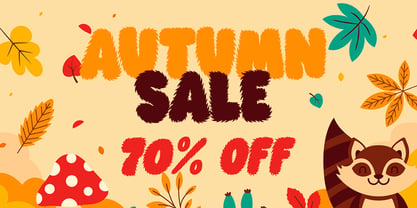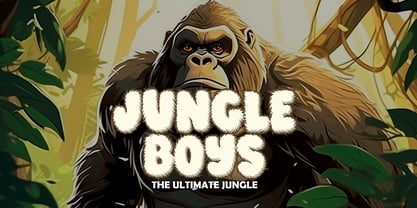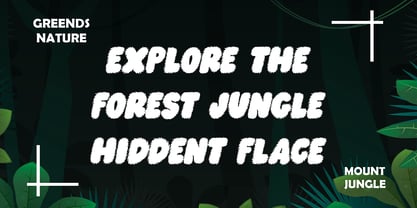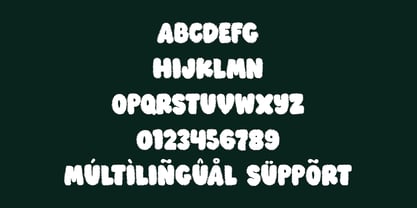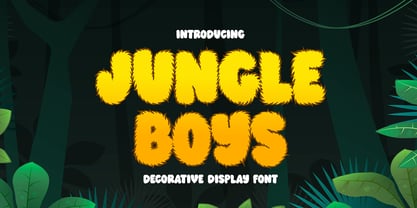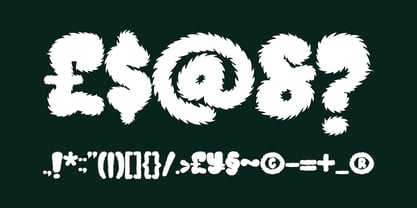
Jungle Boys
by Sipanji21
The Jungle Boys Font Family was designed by Sipanji and published by Sipanji21. Jungle Boys contains 2 styles and family package options. More about this family
Jungle Boys is a bold and wild decorative display font with a furry jungle theme. Inspired by tropical forests and the playful energy of childhood, this typeface is perfect for projects that require a lively and adventurous tone. It’s highly suitable for kids’ books, cartoon titles, jungle-themed merchandise, and branding that needs a touch of untamed fun. Jungle Boys includes uppercase and lowercase characters, numerals, and basic punctuation. Available in OpenType and TrueType formats for full compatibility across platforms.